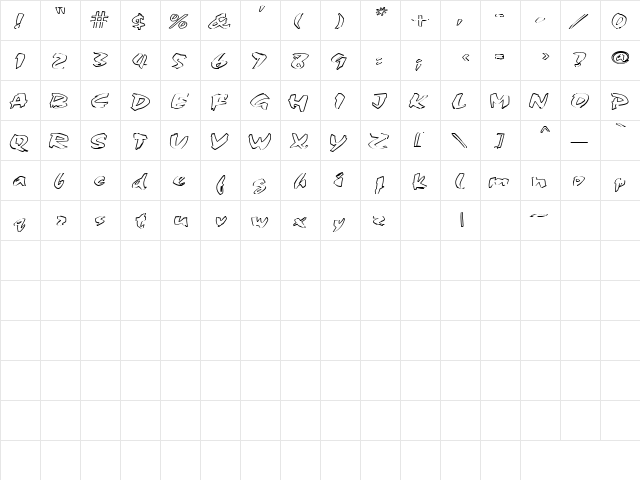
Finger Paint 1 Regular Font Preview
Finger Paint 1 Regular
Design Context for Finger Paint 1 Typeface
Finger Paint 1 is a composed and adaptable typeface that performs quietly and consistently across a wide range of design contexts.